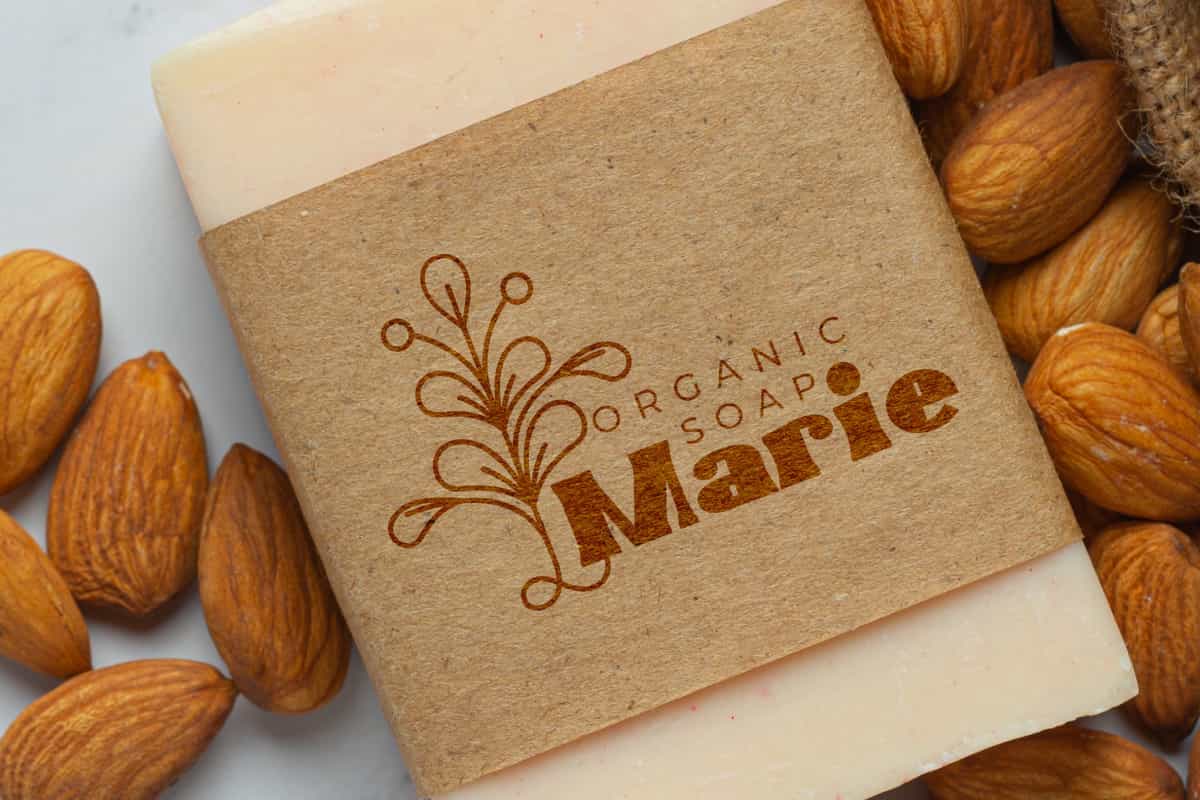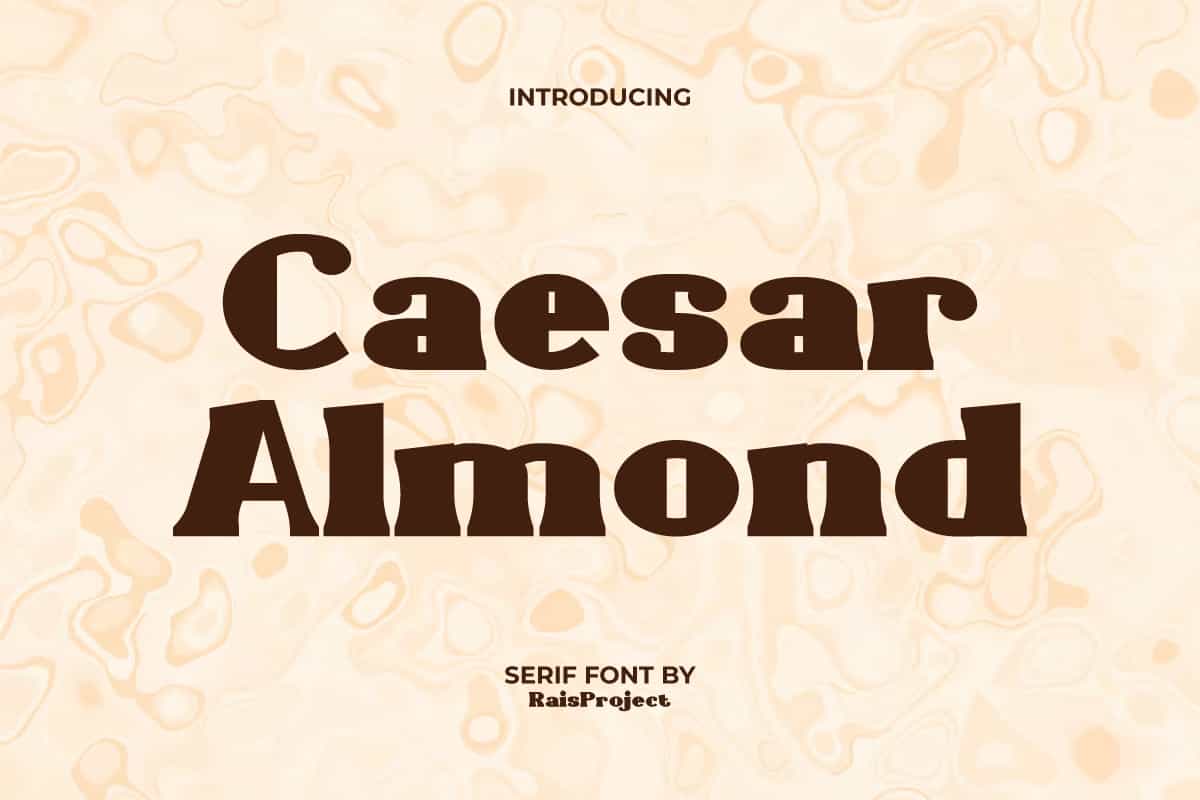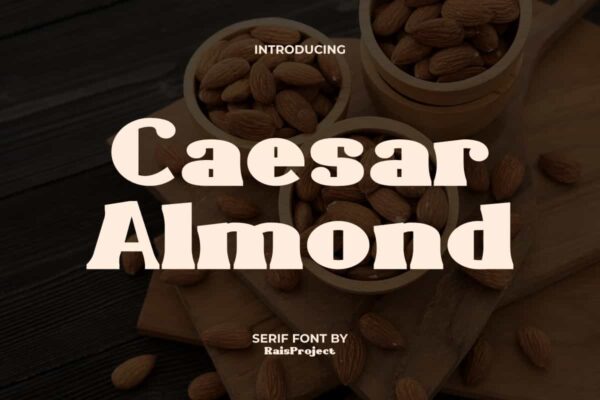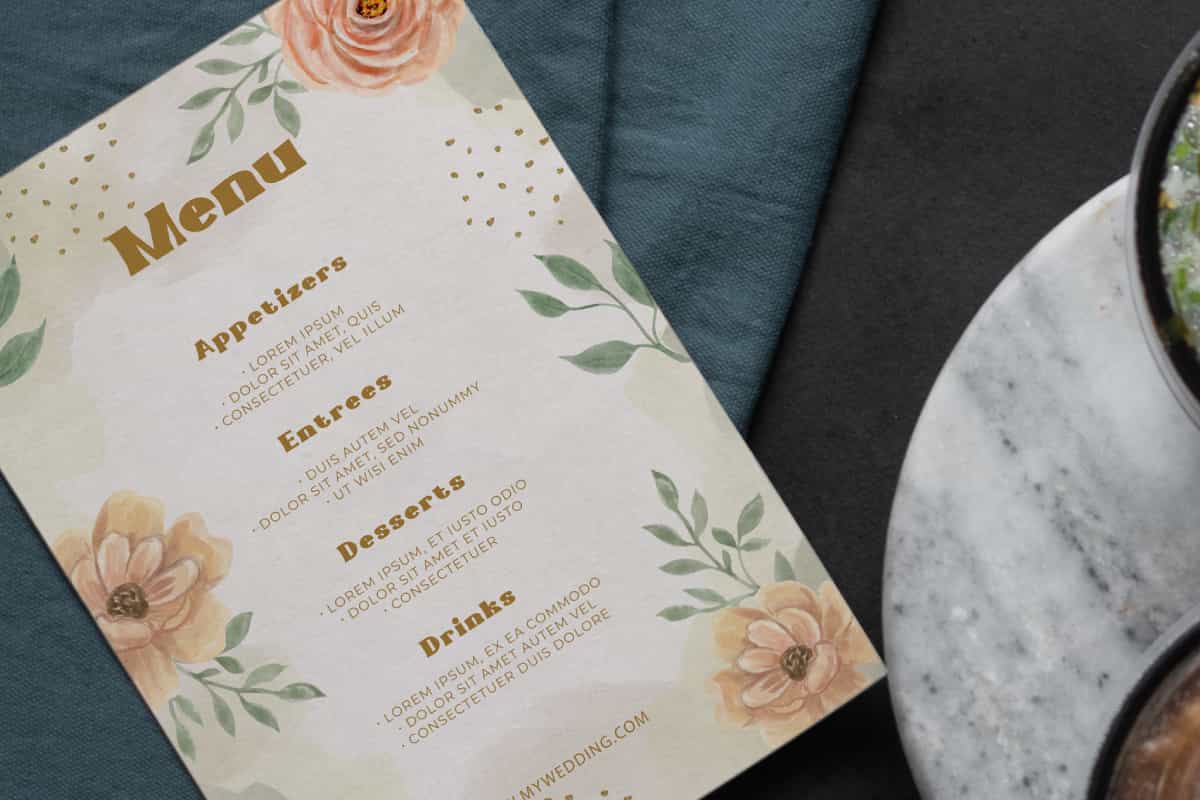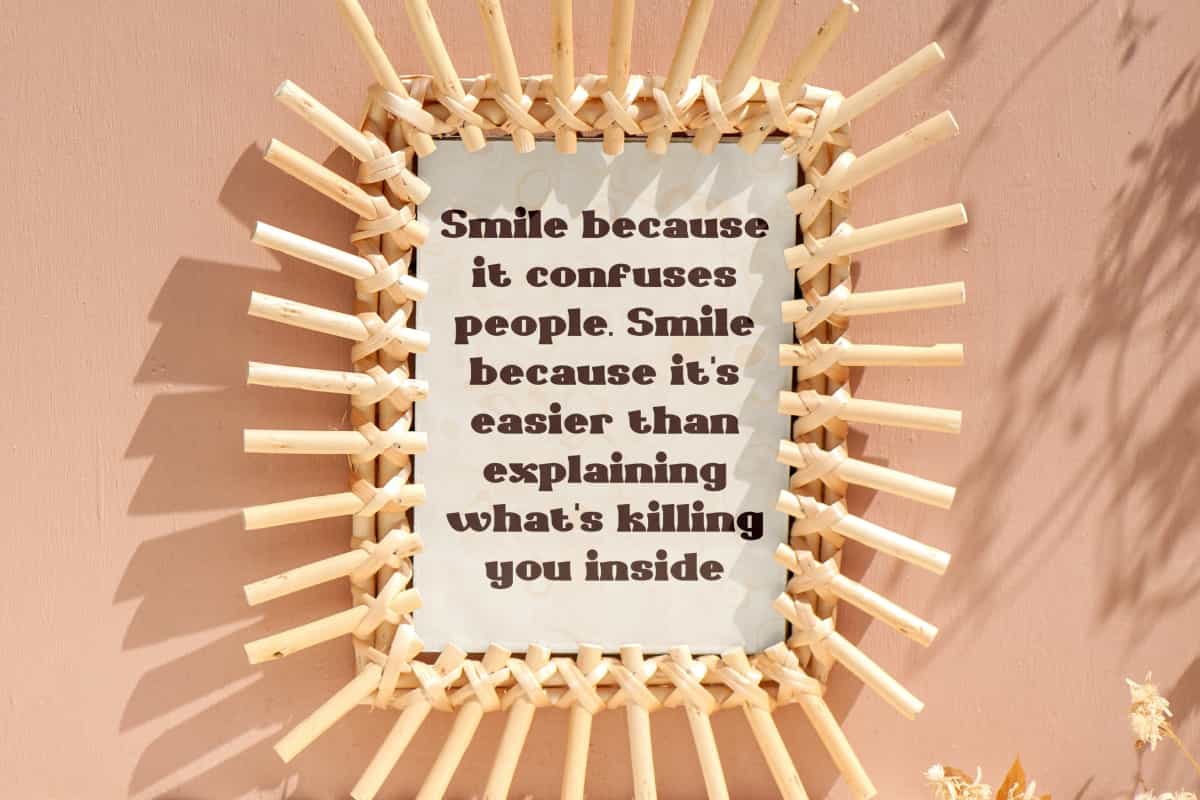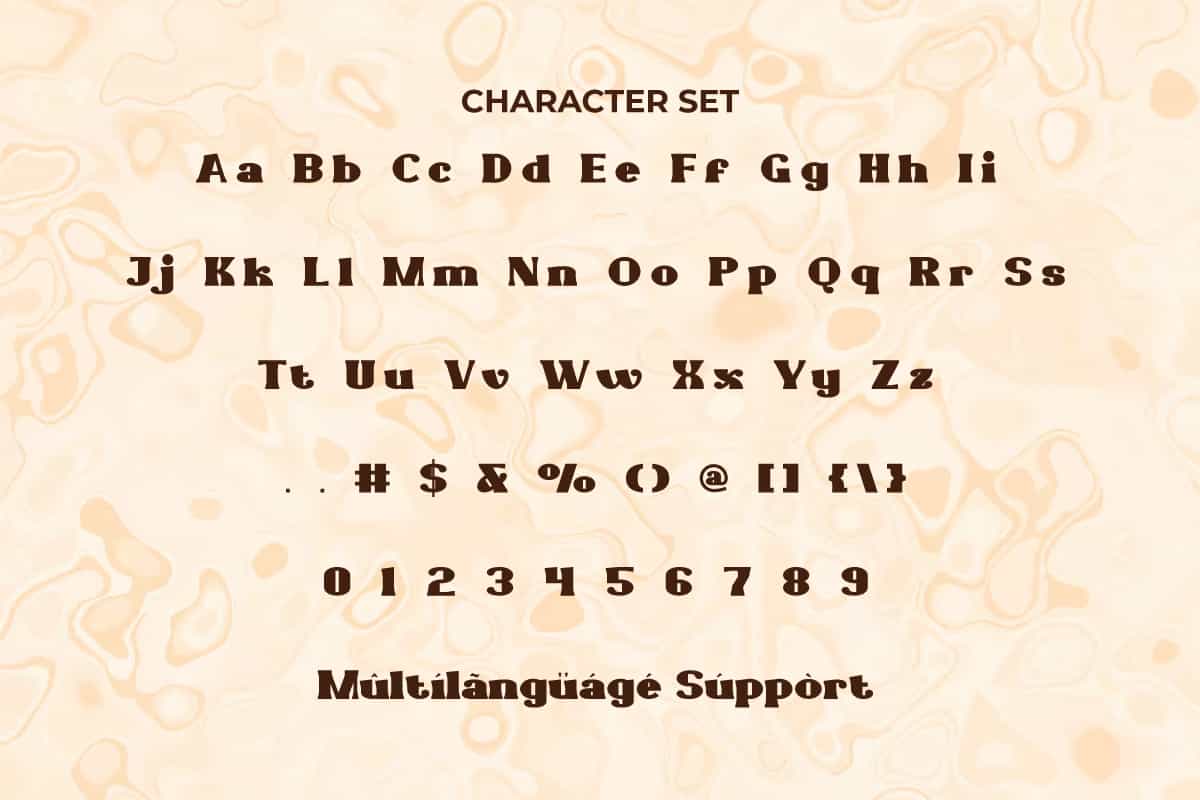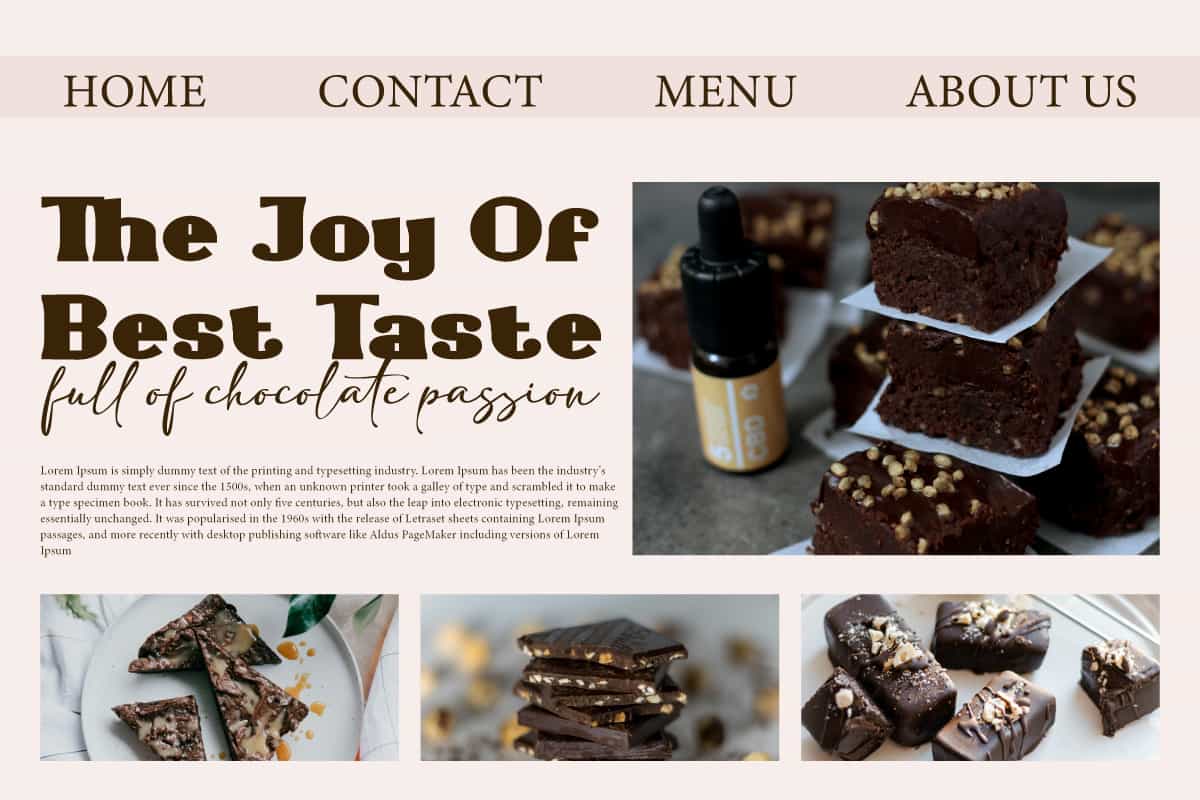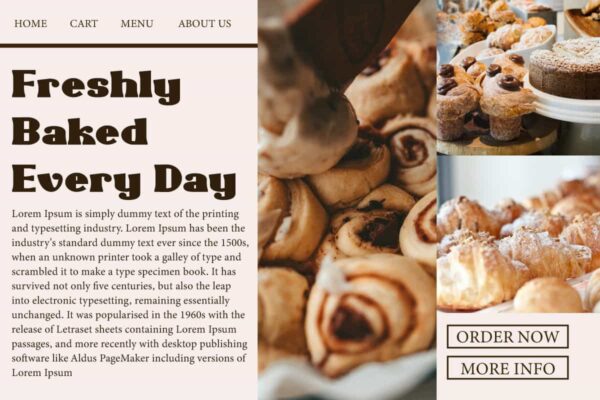
Caesar Almond Font
Caesar Almond Font is an adorable playful serif font. Try use this font to make your design even more cute!
Caesar Almond Font is a bubbly and charming serif font. This font has quite thick characters with a fun style so it can be used on any type of design. It will look good on invitation, stationery, poster, custom design, product packaging, quotes, signage, brand image, advertisement, label, marketing material, website page, and more!
Introducing Caesar Almond Display Font – a bold, stylish, and modern typeface designed to bring sophistication and impact to your creative projects. With its clean lines, refined curves, and eye-catching display design, Caesar Almond is perfect for making a statement in branding, logos, posters, packaging, invitations, and digital content. This font is built to ensure your work not only stands out but also leaves a memorable impression.
Caesar Almond Display Font strikes the perfect balance between elegance and power. Its strong yet graceful letterforms make it an excellent choice for fashion branding, lifestyle campaigns, wedding stationery, editorial layouts, and social media graphics. Whether you’re designing a bold headline, chic promotional material, or stylish merchandise, Caesar Almond gives your project a polished and professional edge.
Caesar Almond Display Font includes a full set of ALL CAPS for Uppercase and Lowercase Letters, Numerals, and large range of Punctuation. This stylish font will be suitable for various industries, such as fashion, jewelry, cafe, event or wedding organizer, photography, printing, publishing, etc.